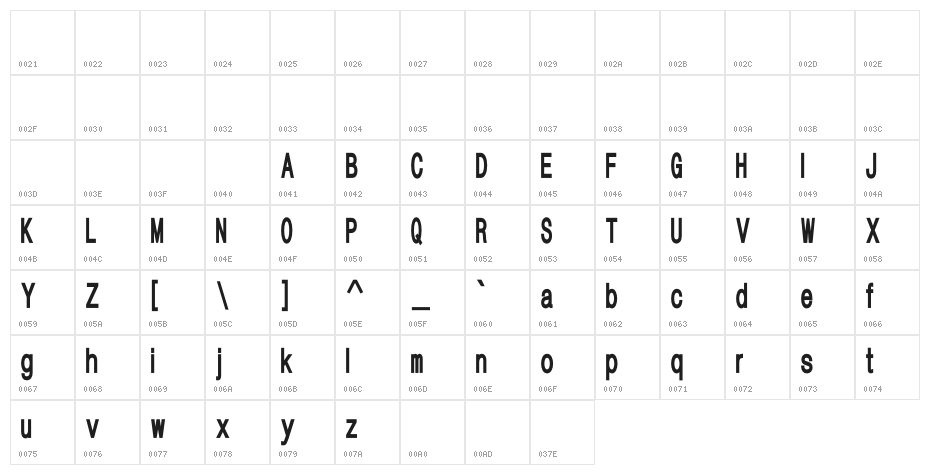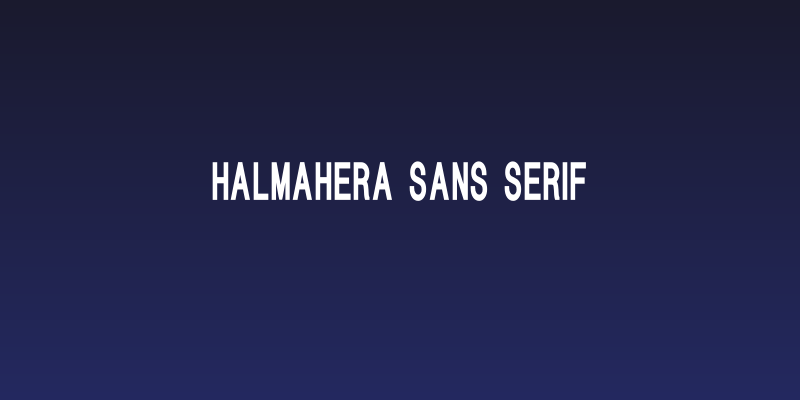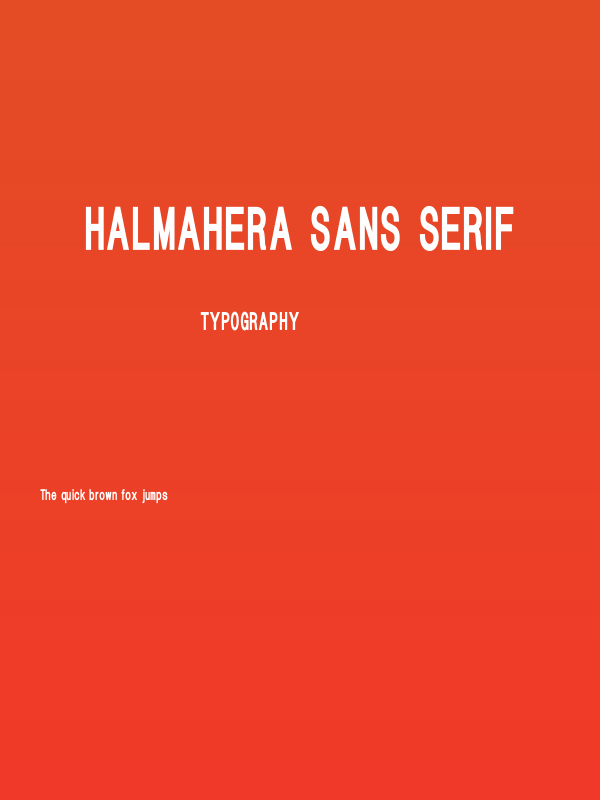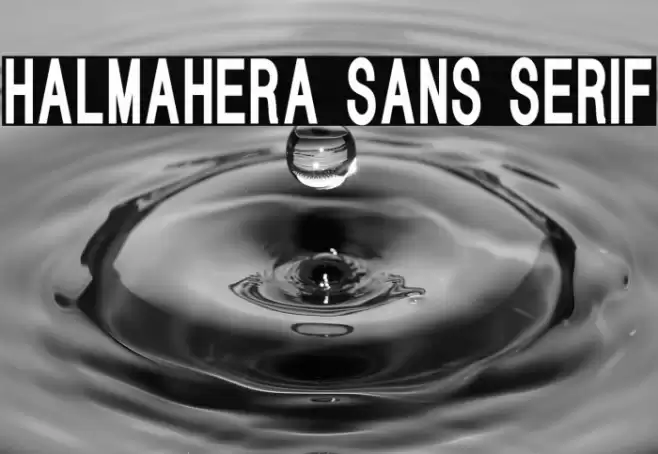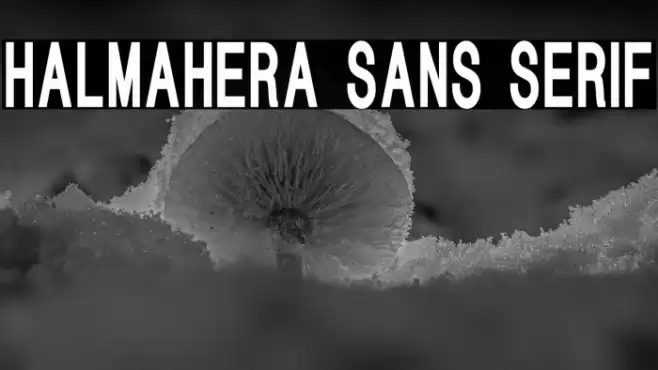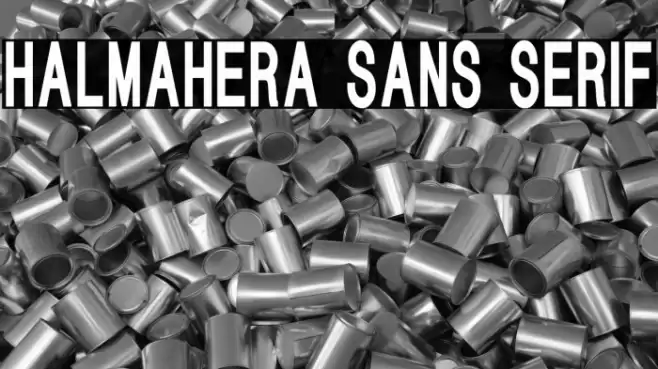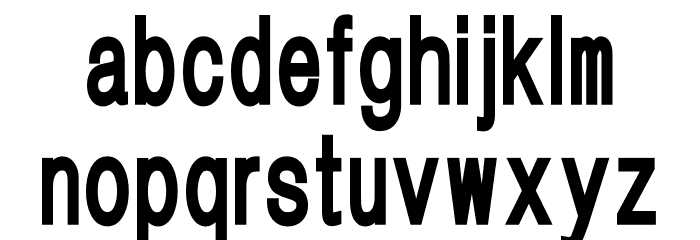
HALMAHERA SANS SERIF Font
HALMAHERA SANS SERIF Description
This font features a bold and robust sans-serif style with clean lines and a strong presence. The characters are uniformly thick, providing a consistent and modern appearance. The uppercase letters are tall and commanding, while the lowercase letters maintain a similar width, ensuring readability and balance. The font's design is straightforward, making it versatile for various applications. Its simplicity and clarity make it suitable for both digital and print media, where legibility is crucial. The uniformity in stroke width across all characters contributes to its cohesive and professional look.
| Use Case | Headlines, Logos, Signage |
| Proposed Projects | Ideal for branding, advertising, headlines, and signage where a strong, modern look is desired. |